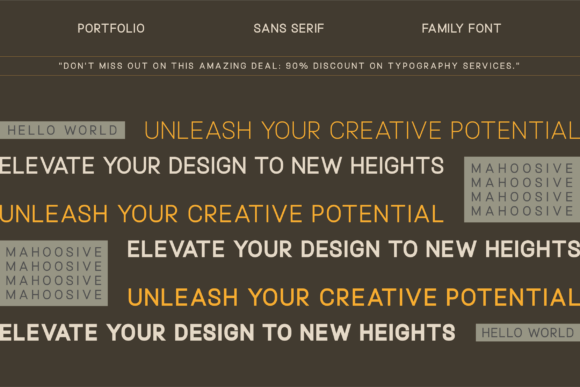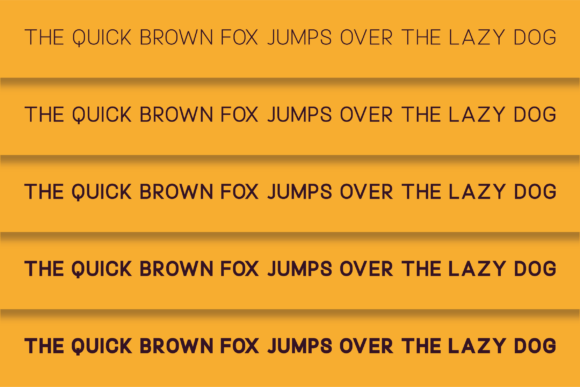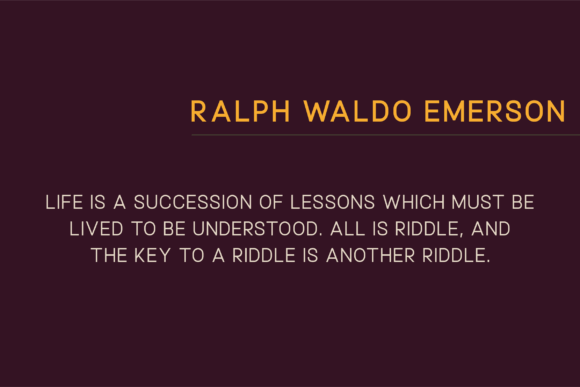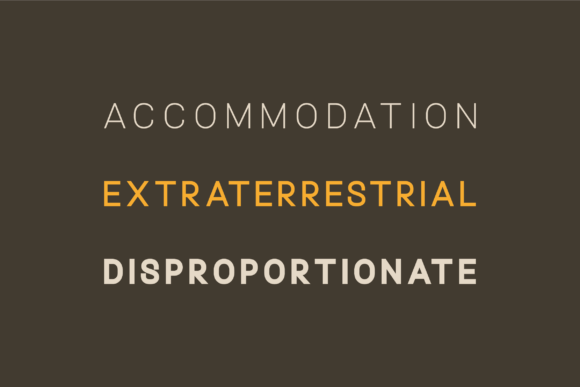
Introduction to Mahoosive Font
Do you remember that moment when you finally nailed the perfect design for your client? The one where everything comes together – colors, typography, composition – and you know you’ve created something truly special? That feeling is what drives designers to push the boundaries of creativity, and it’s exactly what the Mahoosive Font Family is designed to help you achieve.
As a designer, you know that having the right font can make all the difference in bringing your creative project to life. That’s why we’re excited to introduce the Mahoosive Font, a high-quality sans-serif font family that offers unparalleled versatility and sophistication. With its 5 distinct weights, this design resource is perfect for any project, from logos and magazines to film posters and more.
Whether you’re working on a free download or a paid project, the Mahoosive Font is a valuable asset to have in your toolkit. Its transparent background and clean lines make it easy to use on any background, ensuring that your designs stand out with timeless charm and contemporary luxury.
Key Features of Mahoosive Font
- Unique, hand-drawn style with a transparent background, allowing for easy layering and customization.
- Designed to work at high resolutions, making it perfect for large-scale creative projects and print materials.
- High-quality, vector-based design that can be scaled up or down without losing any quality.
Honest Review: Mahoosive Font
As a designer, I’m always on the lookout for high-quality design resources that can elevate my creative projects. The Mahoosive Font is one such find, and I’m excited to share my thoughts on it.
- High-quality typography: The Mahoosive Font boasts a unique, eye-catching design that’s perfect for making a statement in any project.
- Transparent background: This feature makes it easy to overlay the font on top of images or other design elements.
- Limited font styles: While the font is well-designed, it’s a bit limited in terms of font styles and variations.
- Not suitable for small text: Due to its bold design, the Mahoosive Font may not be the best choice for small text or body copy.
Overall, I’m impressed with the Mahoosive Font’s unique design and high-quality typography. While it may have some limitations, it’s a great addition to any designer’s toolkit, especially for creative projects where a bold, eye-catching font is needed.
Mahoosive Font
The Mahoosive Font is a high-quality design resource ideal for creative projects that require a unique and eye-catching style. With its transparent background, this font can be easily integrated into various design platforms.
Tips for Getting the Most Out of Mahoosive Font
For the best results, use the Mahoosive Font on a high-contrast background to make it stand out. You can also experiment with different font sizes and colors to create a unique look.
The Mahoosive Font is perfect for creating eye-catching titles, headings, and banners. It’s also great for adding a touch of personality to your designs. With its free download, you can access this design resource and start creating your next project today.